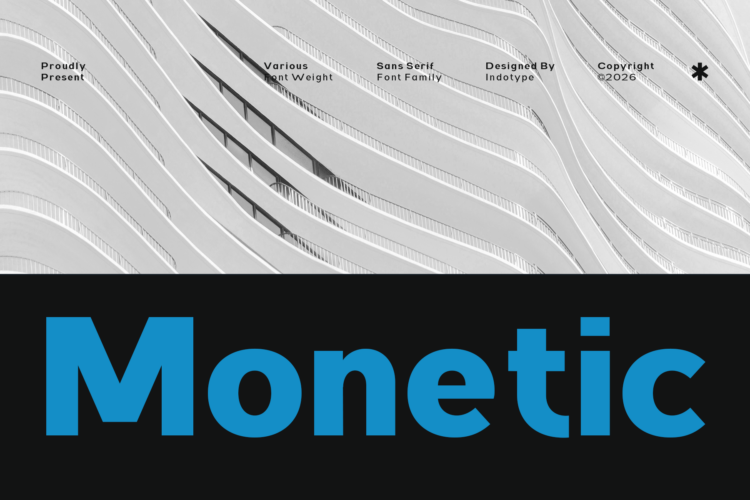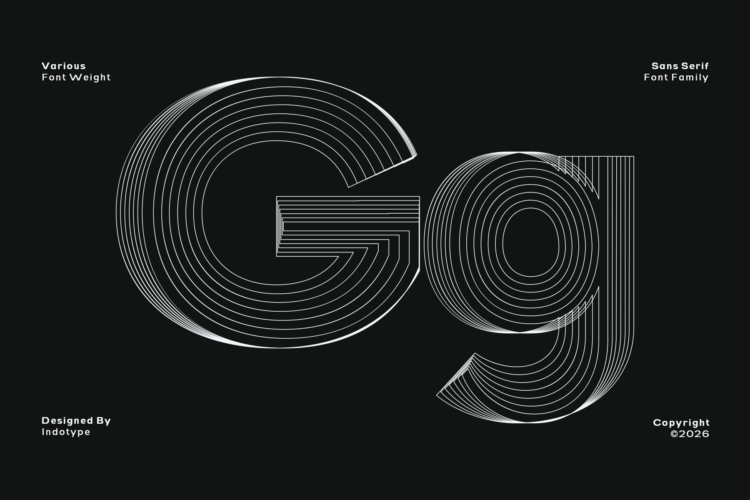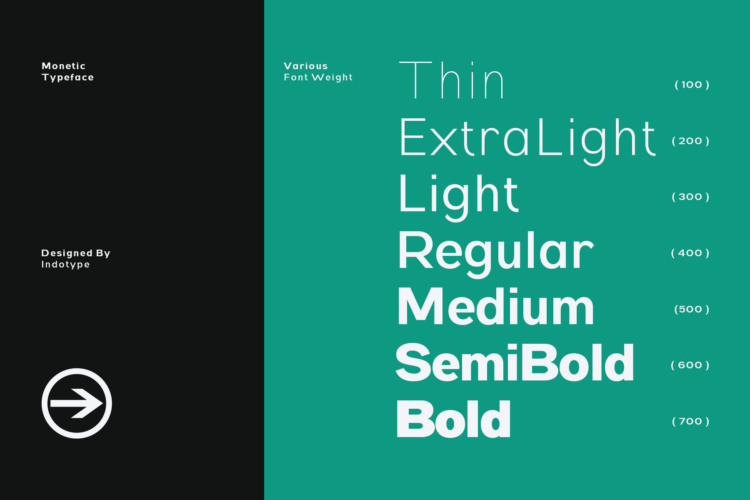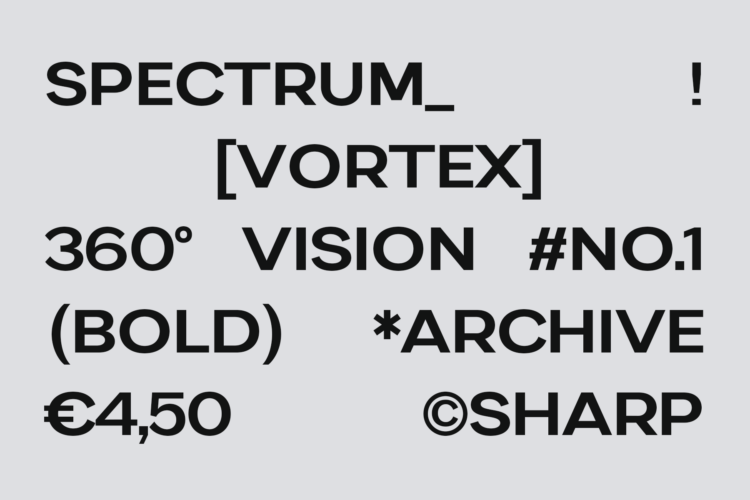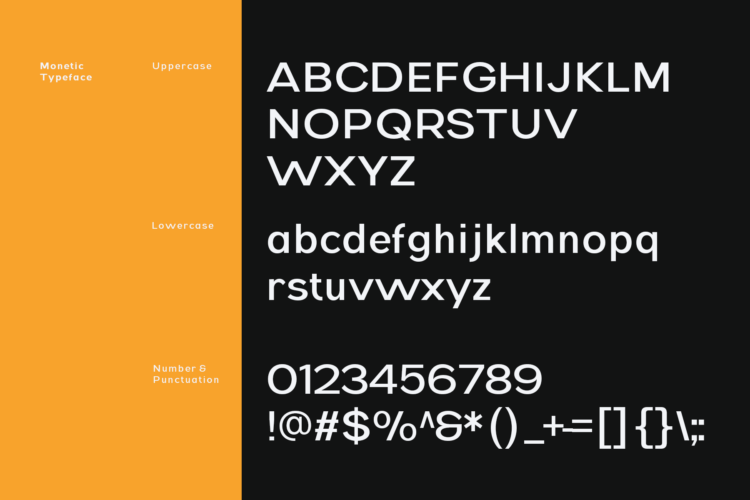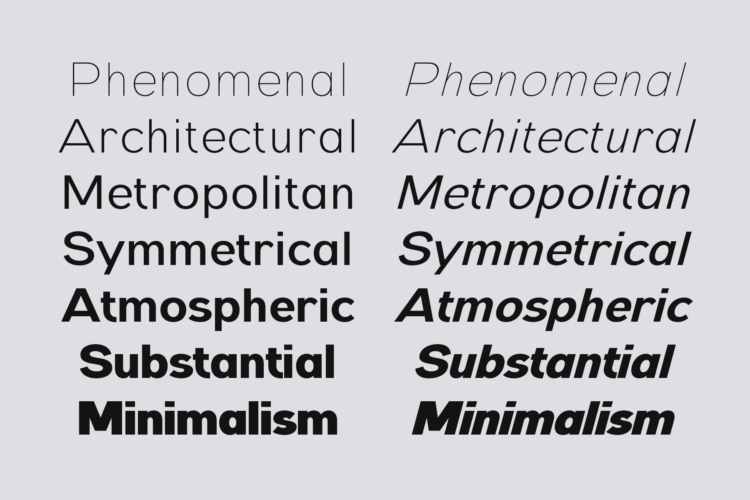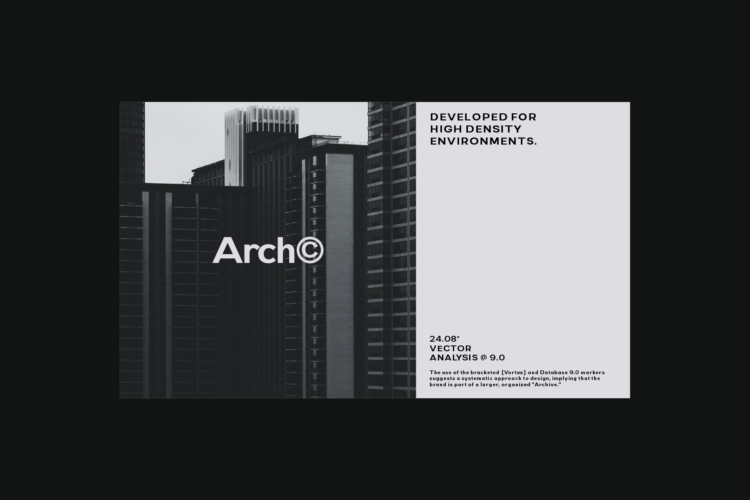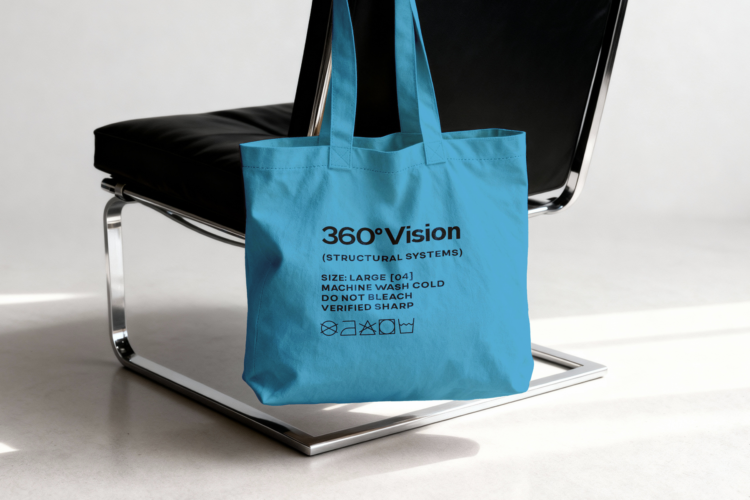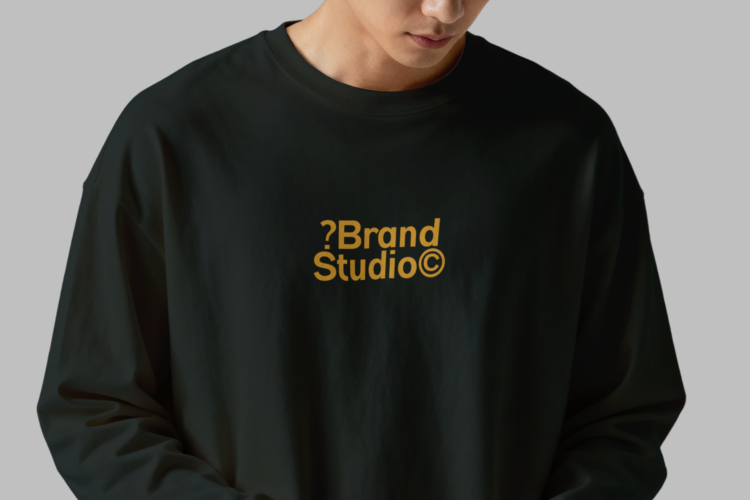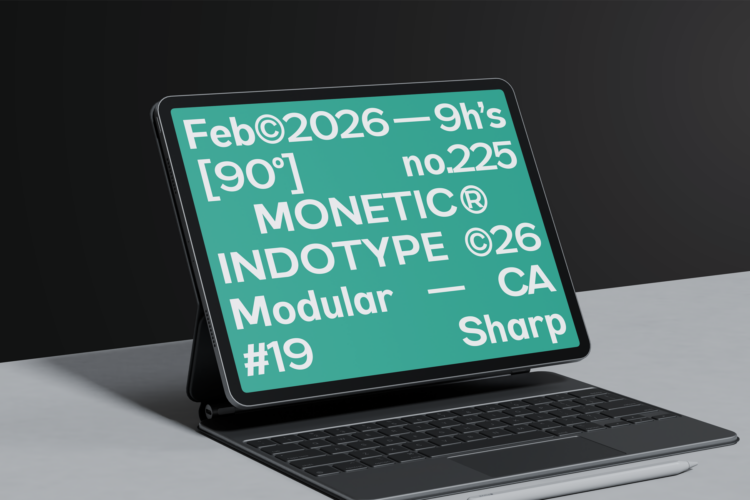
Monetic is a thoughtfully crafted sans-serif typeface family designed for maximum versatility and timeless functionality. Built on clean geometric principles with subtle humanist details, Monetic achieves a perfect balance of modern precision and approachable warmth. Its carefully considered proportions ensure exceptional legibility across all sizes and applications, making it a reliable workhorse for designers across every discipline. This comprehensive family features various font weights, providing the flexibility to create cohesive typographic systems for any project—from delicate captions to commanding headlines. Whether used for corporate branding, editorial design, digital interfaces, or wayfinding systems, Monetic adapts seamlessly while maintaining its consistent, professional character. It’s more than a font family; it’s a foundation for clear, effective communication.
- Classification:Â Sans-Serif, Geometric, Family, Multilingual.
- Attributes:Â Versatile, Clean, Professional, Modern, Reliable, Balanced, Timeless.
- Thin, Extra Light, Light, Regular, Medium, Semi Bold, Bold Weight Styles and Italic Style on Each Weight